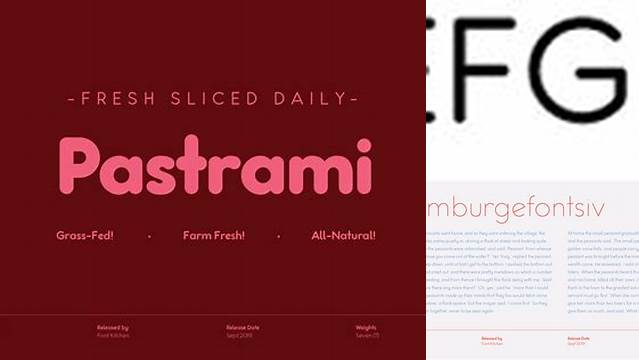
Are you looking to add a touch of vintage charm to your design projects? Look no further! The Pastrami Regular font is a fantastic choice, offering a classic, slightly retro feel that can elevate your work. In this comprehensive guide, we'll delve into everything you need to know about this versatile font, including its characteristics, best uses, and, most importantly, where to find it for free download. Whether you're a seasoned designer or just starting, understanding how to utilize fonts like Pastrami Regular can significantly enhance your creative output. Let's dive in and explore the world of Pastrami Regular font!
What is Pastrami Regular Font?
Pastrami Regular font is a typeface that exudes a timeless appeal, making it a go-to option for designers aiming to capture a vintage aesthetic. Its distinct letterforms and balanced weight contribute to its readability and versatility. This font is not just about looking good; it's about delivering your message with clarity and style. Pastrami Regular typically features a clean, sans-serif design, ensuring it remains legible across various applications, from print to digital media. Its simplicity is its strength, allowing it to blend seamlessly with other design elements without overpowering them. The charm of the Pastrami Regular font lies in its ability to evoke nostalgia while maintaining a modern edge. It's a font that speaks volumes without being overly decorative, making it perfect for projects that require a subtle yet impactful visual statement. Designers often appreciate its adaptability, as it can be used for headlines, body text, and even logos, depending on the specific design requirements. The font's character set usually includes uppercase and lowercase letters, numerals, punctuation marks, and sometimes even special characters, providing a comprehensive toolkit for various design needs. Whether you're working on a branding project, a website, or a print advertisement, Pastrami Regular offers a reliable and stylish solution.
Key Characteristics of Pastrami Regular Font
When evaluating a font like Pastrami Regular, understanding its key characteristics is essential to determine if it aligns with your project's needs. Here are some defining features: Readability: Pastrami Regular is designed with readability in mind, ensuring that text remains clear and legible even at smaller sizes. This is crucial for body text and other content-heavy applications. Clean Design: The font boasts a clean, sans-serif design, free from unnecessary embellishments. This simplicity contributes to its versatility, allowing it to be used in a wide range of design contexts. Balanced Weight: The weight of the letters is carefully balanced, providing a harmonious appearance. This balance ensures that the font looks aesthetically pleasing and professional. Vintage Aesthetic: Pastrami Regular has a subtle vintage charm, making it ideal for projects that aim to evoke a sense of nostalgia or classic style. Versatility: The font is versatile and can be used for various purposes, including headlines, body text, logos, and branding materials. Its adaptability makes it a valuable asset for any designer. Character Set: A comprehensive character set typically includes uppercase and lowercase letters, numerals, punctuation marks, and special characters, providing a complete toolkit for your design needs. Compatibility: Pastrami Regular is generally compatible with various design software and operating systems, ensuring that you can use it seamlessly across different platforms. Understanding these characteristics will help you make informed decisions about whether Pastrami Regular is the right font for your project, ensuring that it enhances your design and effectively communicates your message.
Best Uses for Pastrami Regular Font
The Pastrami Regular font is incredibly versatile, making it suitable for a wide array of design projects. Its clean and slightly vintage aesthetic allows it to shine in various contexts. Here are some of the best uses for this font: Logos and Branding: Its simplicity and timeless appeal make it an excellent choice for creating memorable logos and branding materials. The font can convey a sense of reliability and sophistication, perfect for businesses looking to establish a strong brand identity. Headlines and Titles: Pastrami Regular is highly effective for headlines and titles, grabbing attention without being overly distracting. Its readability ensures that your message is clear and impactful. Body Text: Thanks to its clean design and balanced weight, this font is also suitable for body text. It provides a comfortable reading experience, making it ideal for articles, reports, and other content-heavy applications. Posters and Flyers: The font's vintage charm makes it a great option for designing posters and flyers, especially those with a retro or classic theme. It can help create eye-catching designs that stand out. Websites: Pastrami Regular can be used for various elements on websites, including headings, subheadings, and body text. Its readability ensures that your website is user-friendly and visually appealing. Print Materials: From brochures and business cards to invitations and newsletters, this font can enhance the look and feel of your print materials. Its versatility makes it a valuable asset for any print design project. Social Media Graphics: Use Pastrami Regular to create engaging social media graphics that capture attention and communicate your message effectively. Its clean design ensures that your graphics look professional and polished. By understanding these best uses, you can leverage the full potential of the Pastrami Regular font and create stunning designs that leave a lasting impression. Whether you're working on a branding project, a website, or print materials, this font offers a reliable and stylish solution.
Tips for Using Pastrami Regular Font Effectively
Once you've successfully downloaded the Pastrami Regular font, the next step is to use it effectively in your design projects. Here are some tips to help you make the most of this versatile typeface: Pair it Wisely: Pastrami Regular pairs well with other sans-serif and serif fonts. Experiment with different combinations to find a pairing that complements your design aesthetic. For example, you might pair it with a classic serif font for a sophisticated look or a modern sans-serif for a contemporary feel. Consider the Context: Think about the overall context of your design and how the font fits into it. Is it appropriate for the tone and style of your project? Ensure that the font aligns with the message you're trying to convey. Adjust the Spacing: Pay attention to the letter spacing (tracking) and line spacing (leading) to ensure optimal readability. Adjusting these settings can significantly improve the visual appeal and legibility of your text. Use Hierarchy: Utilize different font sizes and weights to create a clear visual hierarchy. This will help guide the reader's eye and make your design more organized and effective. Limit Font Choices: Avoid using too many different fonts in a single design. Stick to a maximum of two or three fonts to maintain a cohesive and professional look. Test Readability: Always test the readability of your text across different devices and screen sizes. Ensure that the font remains legible even at smaller sizes. Experiment with Color: Experiment with different colors to see how they affect the overall look and feel of the font. Consider using contrasting colors to make your text stand out. Stay Consistent: Maintain consistency in your font usage throughout your project. This will help create a unified and polished design. By following these tips, you can effectively utilize the Pastrami Regular font and create stunning designs that capture attention and communicate your message clearly. Whether you're working on a logo, a website, or a print advertisement, these guidelines will help you make the most of this versatile typeface.
The Pastrami Regular font is a valuable asset for any designer looking to add a touch of vintage charm and versatility to their projects. Its clean design, balanced weight, and readability make it suitable for a wide range of applications, from logos and headlines to body text and branding materials. By understanding its key characteristics and best uses, you can leverage the full potential of this typeface and create stunning designs that leave a lasting impression. Remember to download the font from reputable sources, always verify the license agreement, and follow the tips for effective usage to ensure that your designs are both visually appealing and legally compliant. Whether you're a seasoned designer or just starting, Pastrami Regular offers a reliable and stylish solution for all your design needs. So go ahead, download this fantastic font, and start creating amazing designs today! Guys, have fun and happy designing!